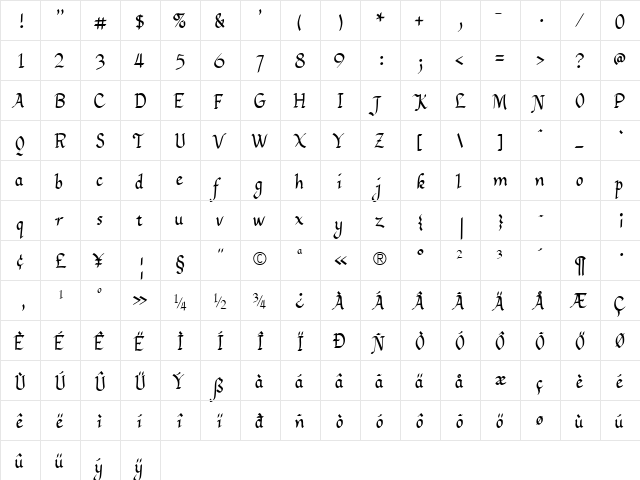
GretchenHello Bold Font Preview
GretchenHello Bold
Design Context for GretchenHello Typeface
GretchenHello is a composed and adaptable typeface that performs quietly and consistently across a wide range of design contexts. Its bold stroke weight gives it real presence on the page.